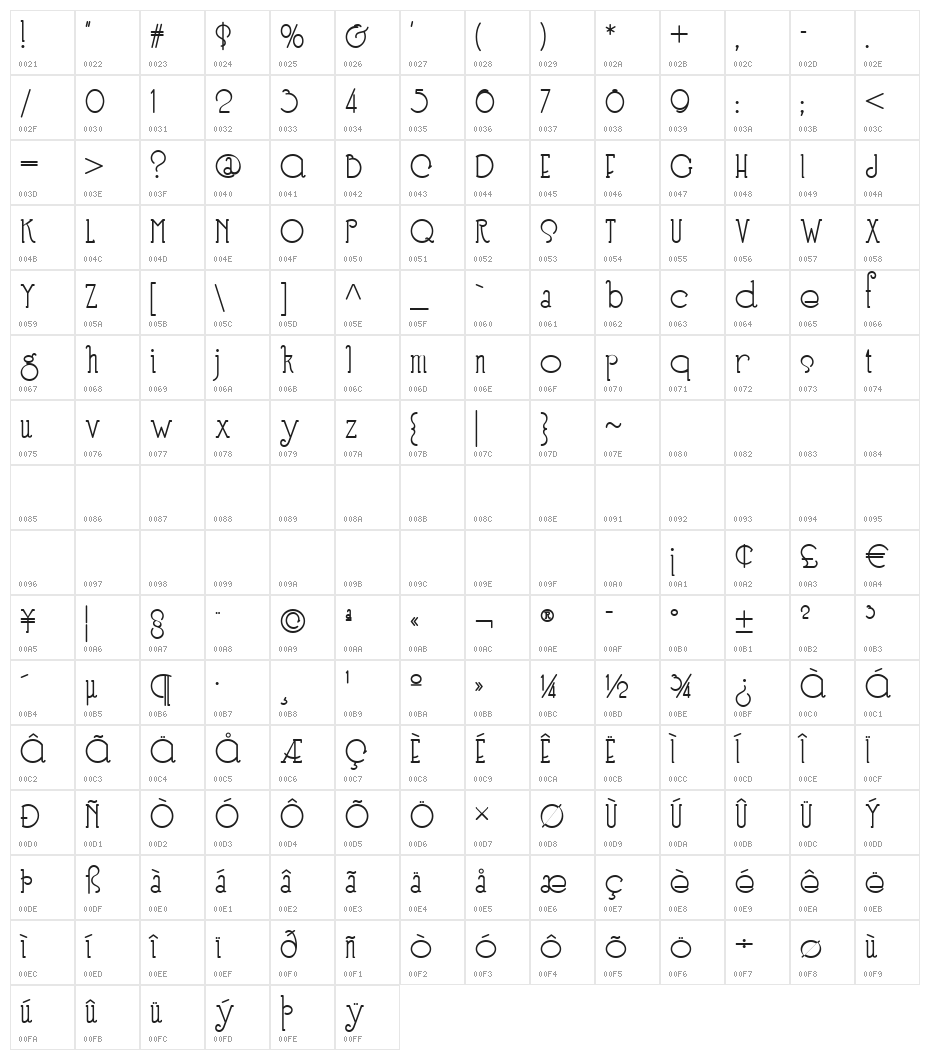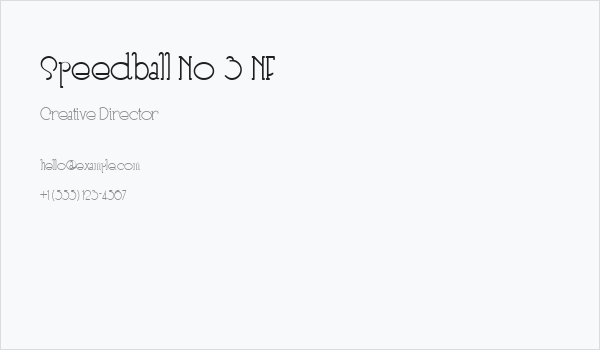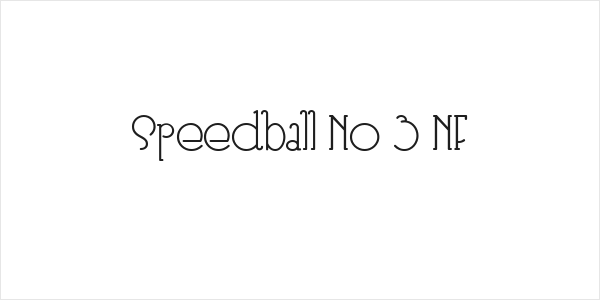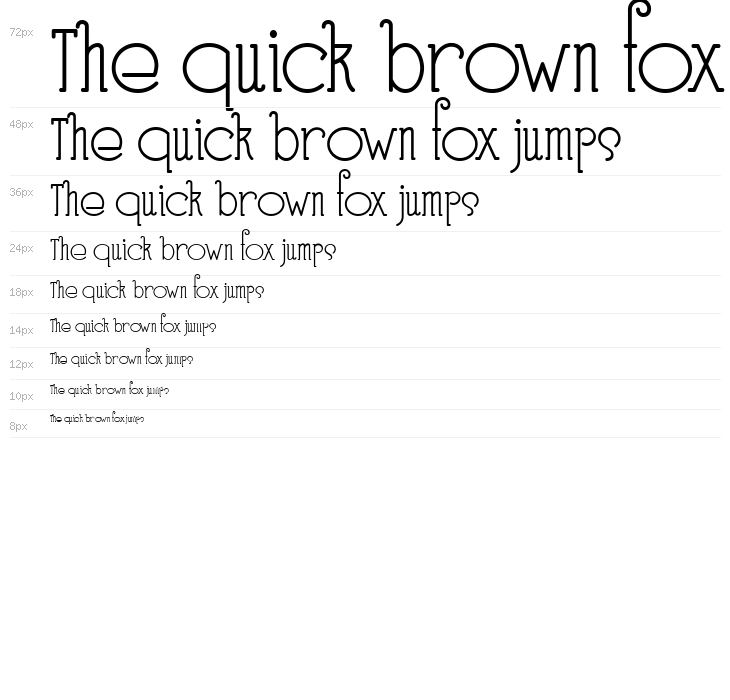
Speedball No 3 NF Font
Speedball No 3 NF Description
This font features a unique and artistic style with a blend of geometric and decorative elements. The uppercase letters are characterized by their tall, slender forms with subtle curves and flourishes, giving them an elegant yet playful appearance. The lowercase letters maintain a consistent style, with some characters like 'g' and 'y' having distinctive loops and swirls. The numerals are designed with a similar aesthetic, ensuring a cohesive look across all characters. Special characters are included, each crafted with the same attention to detail, making this font versatile for various design needs.
| Proposed Projects | Ideal for creative projects such as posters, invitations, branding, and packaging design where a unique and artistic touch is desired. |